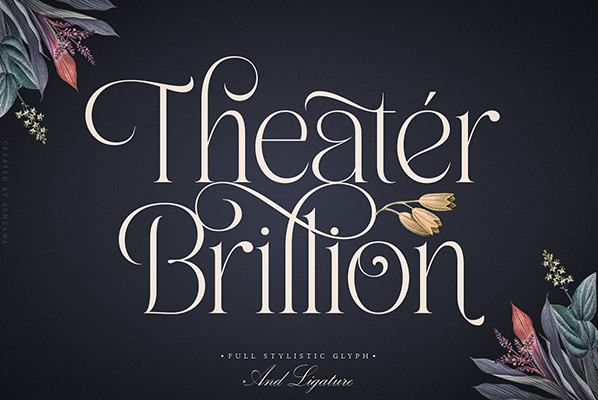
Font name: | Theater Brillion |
Author: | Kidcool Dragon |
Hi everybody, on this occasion I would like to introduce a new product. dubbed Theater Brillion, he is very classic and elegant. equipped with stylistics up to 288 glyphs, of course it will really help your work more attractive and beautiful. JUST $13 Purchasing on creative market https://crmrkt.com/AJVzVo purchasing on Fontbundles https://fontbundles.net/senzana/1598031-theater-brillion |